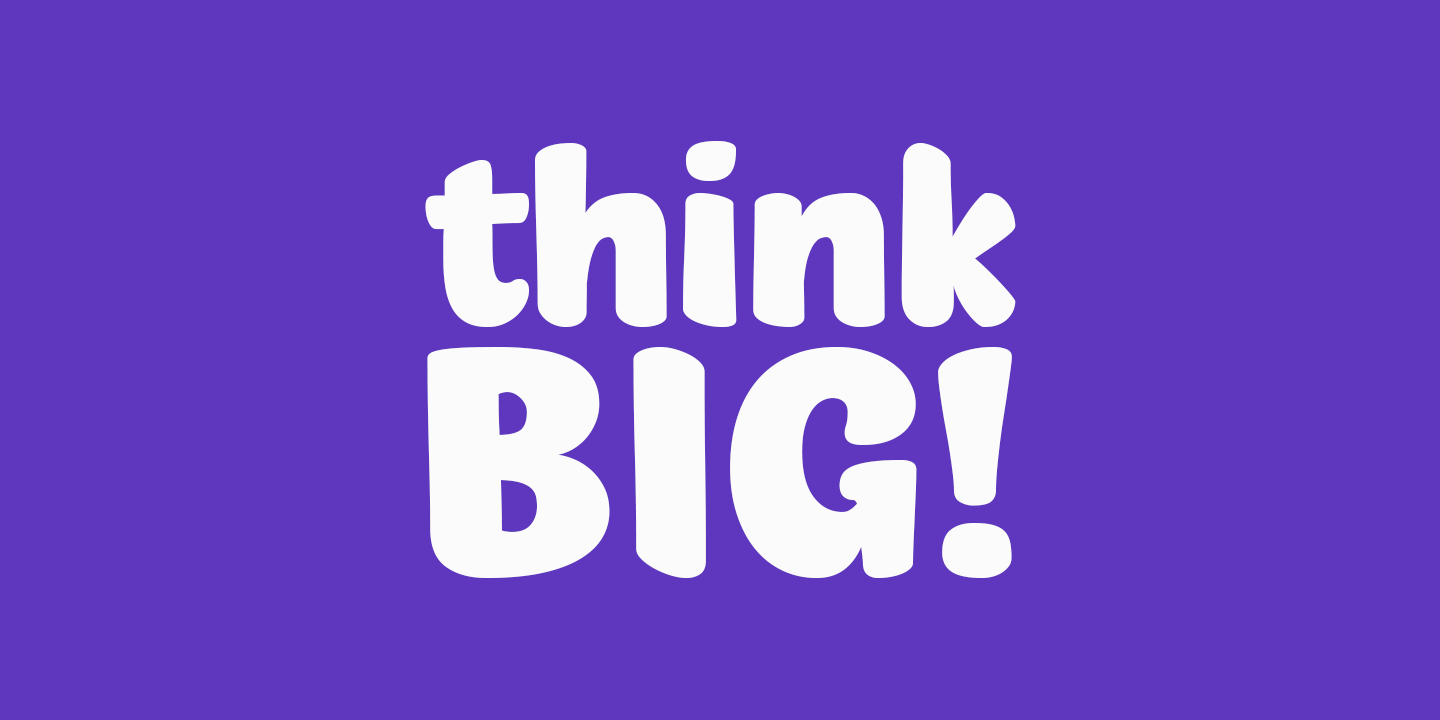
Herbit Font Free Download is a fresh, nature-inspired display font that blends rustic charm with modern design aesthetics. Please note that you must purchase this font for commercial use. It is available as a free download for personal and testing purposes only.
You can use Herbit Font in eco-friendly branding, botanical product packaging, organic food labels, gardening blogs, lifestyle magazines, natural skincare promotions, herbal tea branding, and wellness-based social media content. Its earthy and hand-crafted feel makes it ideal for anything rooted in nature or sustainability.
What makes Herbit so exciting is its balance between natural imperfection and visual harmony. The font has a slightly hand-drawn vibe that feels personal and authentic, yet it still maintains strong structure and readability — perfect for connecting emotionally with audiences who value mindfulness and earth-friendly living.
The Herbit Font family includes various organic styles such as Herbit Regular, Herbit Rough, Herbit Italic, and Herbit Soft, giving you flexibility to create harmonious compositions that still feel dynamic and textured.
If you're looking to infuse your design with natural energy and a grounded, approachable personality, Herbit Font Free Download is the perfect choice. Download it today and let your visuals bloom with authenticity, sustainability, and handcrafted charm.